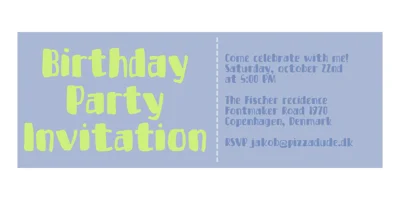
Bottle Party Font
Bottle Party Font excels in celebratory design applications including party supply store branding, beverage company materials, nightclub event promotions, festival merchandise graphics, celebration venue signage, cocktail bar communications, party planning services, festive product packaging, social event invitations, and joyful lifestyle campaigns. This exuberant typeface brings party atmosphere to celebration-focused design projects.
What makes Bottle Party Font truly exciting is its perfect capture of celebratory energy with bubbly letterforms that evoke champagne fizz and festive excitement through playful design elements. The font features effervescent characters with party proportions and celebratory charm that convey joy, spontaneity, and the infectious energy of good times shared with friends. Its festive personality and party spirit make it ideal for brands celebrating life's special moments, social gatherings, and audiences who appreciate party culture, celebration traditions, and the universal joy of coming together to toast life's milestones and achievements.
The Bottle Party Font family typically includes Regular weight with potential bubble and sparkle variations that enhance its celebratory character. These festive options provide designers with complete party styling while maintaining the font's distinctive celebratory elegance and joyful presentation across various party applications and celebration contexts.
Whether you're developing party industry branding, creating celebration campaigns, or designing festive marketing materials, Bottle Party Font delivers the celebratory authority and party sophistication that festive projects require. Its exceptional joy and celebratory appeal make it invaluable for designers working with party planners, beverage companies, and celebration-focused brands requiring typography that captures party magic, promotes joyful gathering, and reflects the universal human need for celebration, friendship, and the special moments that make life worth toasting with enthusiasm and shared happiness.